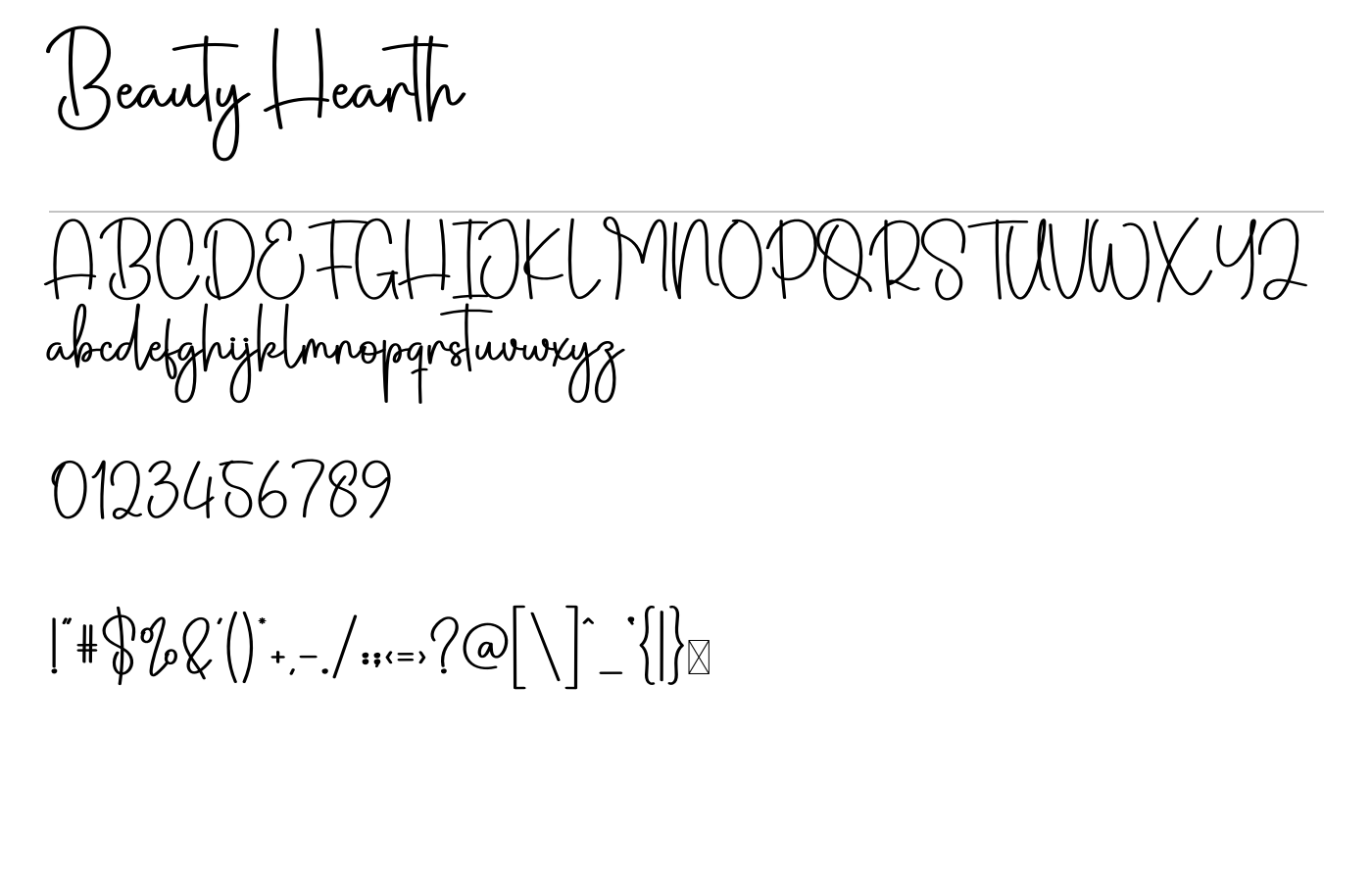
Beauty Hearth is a delicate, handwritten script font with a casual yet refined feel. Its tall, slender letterforms and playful loops create an elegant and approachable style perfect for branding, invitations, and creative projects that seek a personal, charming touch. This font works well for designs needing a warm, feminine vibe with a modern handwritten flair.
Beauty Hearth Font
About Beauty Hearth Font
| Font family | Beauty Hearth Font |